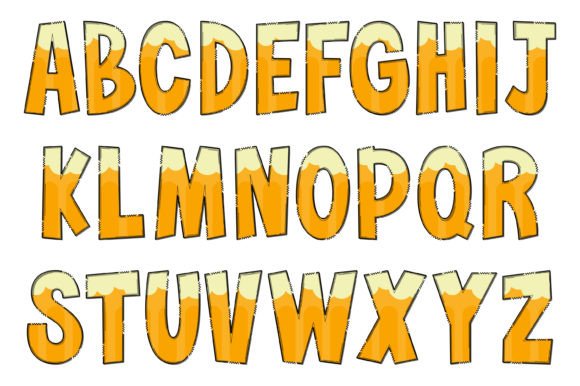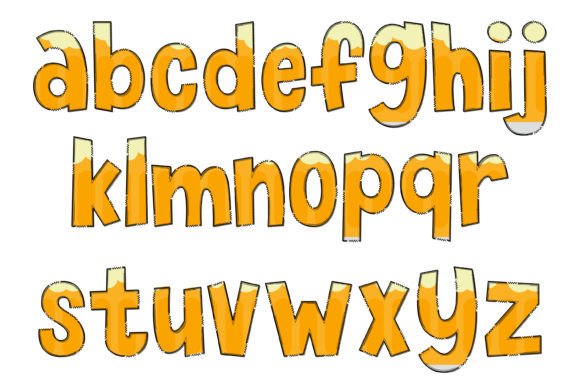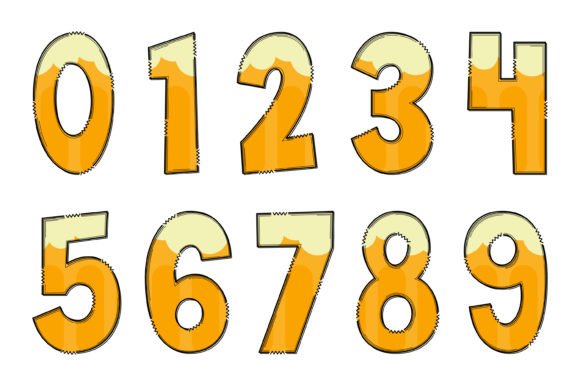
Introduction to Ice Beer Font
As a designer, have you ever stumbled upon a quirky, colorful font that immediately sparked your creativity and made you want to dive into a new project? For me, that moment happened when I discovered the Ice Beer Font. Its playful and whimsical feel is perfect for designs that aim to convey a sense of fun and imagination.
As a valuable design resource, the Ice Beer Font is a high-quality, Opentype-SVG color font that’s compatible with a range of creative tools, including PhotoShop, Illustrator, Silhouette, and Inkscape. Whether you’re working on a children’s book, a poster, or a greeting card, this font is sure to add a touch of personality and creativity to your design.
Key Features of Ice Beer Font
- High-quality design resource perfect for creative projects, including beer labels and packaging designs.
- Unique and stylish Ice Beer Font features a transparent background, allowing for easy customization and layering in your designs.
- Comes in a single weight, ideal for creating eye-catching and modern beer labels, menus, and promotional materials.
- Designed with a crisp and clean aesthetic, the Ice Beer Font is perfect for both digital and print applications.
- Features a large character set, including uppercase and lowercase letters, numbers, and punctuation marks, for a wide range of design possibilities.
- Supports various resolutions, including high-resolution designs for print materials, ensuring your designs look great on any medium.
Honest Review: Ice Beer Font
I recently came across the Ice Beer Font, and I must say it’s a fantastic addition to any creative project. The font is a high-quality design resource that can elevate the look of any digital or print design.
One of the standout features of the Ice Beer Font is its transparent background, which makes it incredibly versatile and easy to use. You can overlay it on top of any image or color, and it will still look great. ✨
Here are some of the key features of the Ice Beer Font:
- Transparent background for easy use
While the Ice Beer Font is an excellent choice, there are a few limitations to be aware of. ⚠️ The font is quite large, so it may not be suitable for all projects. Additionally, the font may not be available in as many languages as some other fonts.
Overall, I’m really impressed with the Ice Beer Font. It’s a great design resource that’s perfect for anyone looking to add a touch of sophistication to their creative project. I highly recommend giving it a try.
Ice Beer Font
The Ice Beer Font is a high-quality, free design resource perfect for creative projects. This font features a transparent background, making it versatile and easy to use in various design applications.
Tips for Getting the Most Out of Ice Beer Font
To get the most out of Ice Beer Font, experiment with different font sizes, colors, and styles to create unique and eye-catching designs.
Common Use Cases for Ice Beer Font
The Ice Beer Font is perfect for use in creative projects, such as brochures, flyers, and social media graphics. It’s also great for use in food and beverage branding, as it evokes a sense of coolness and refreshment.